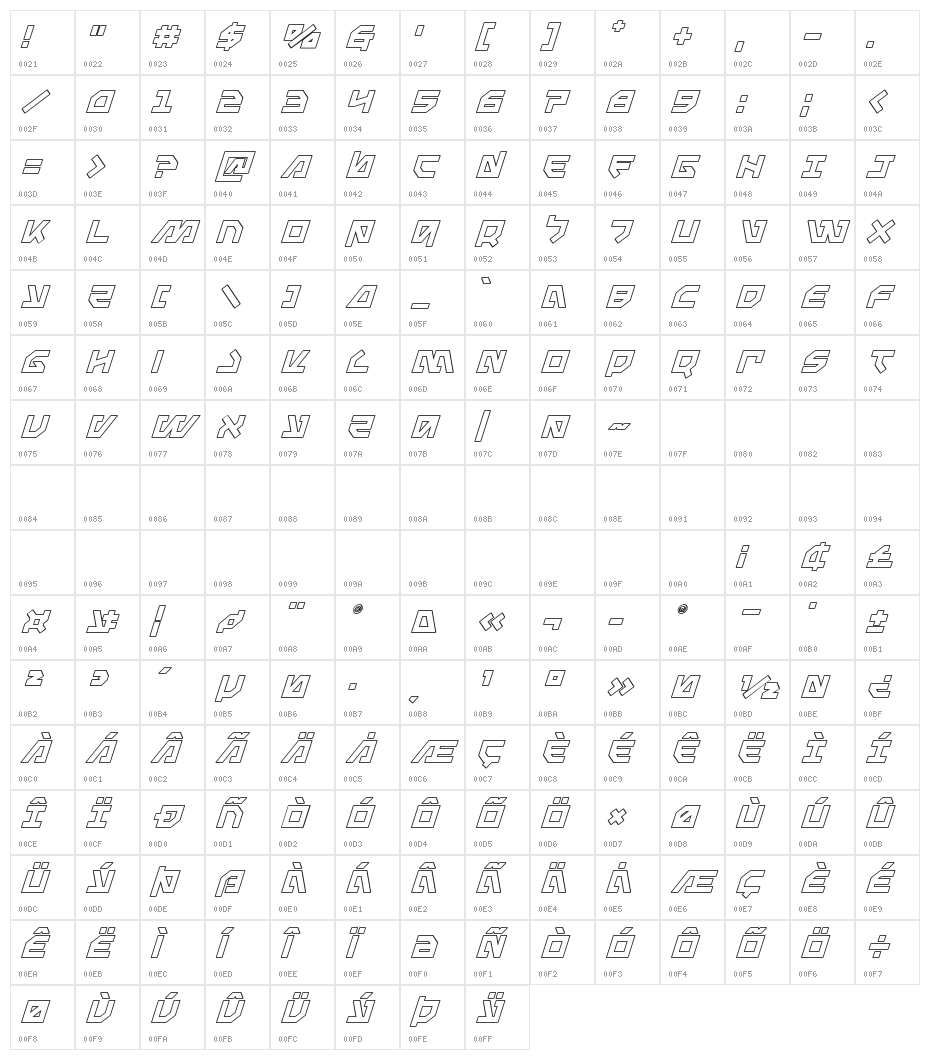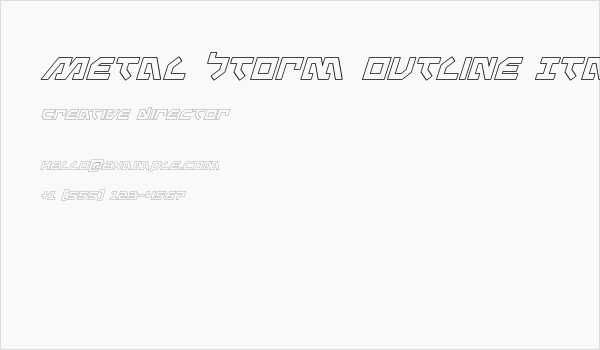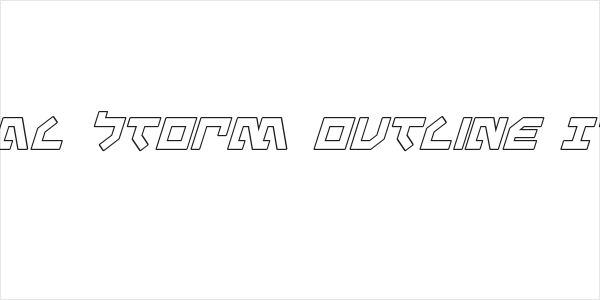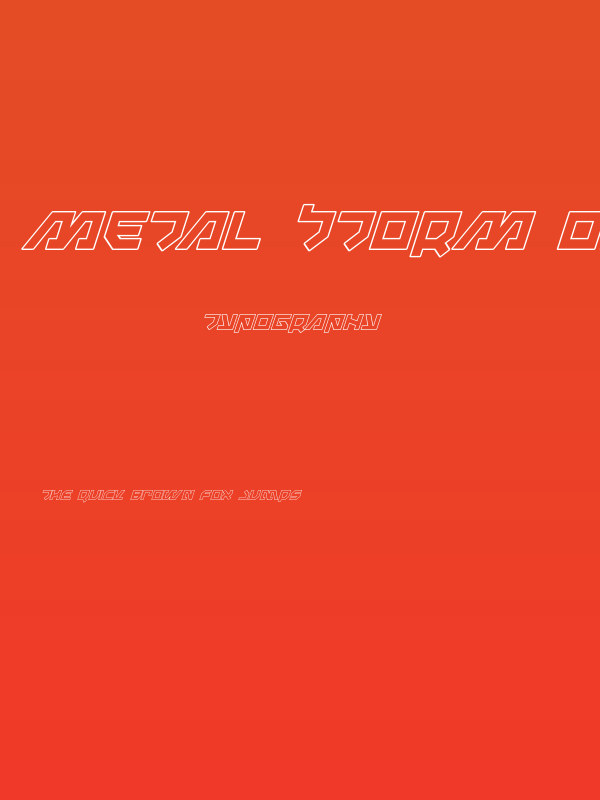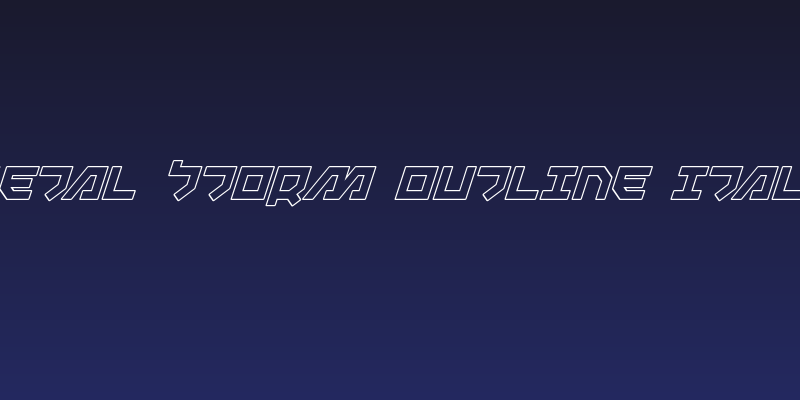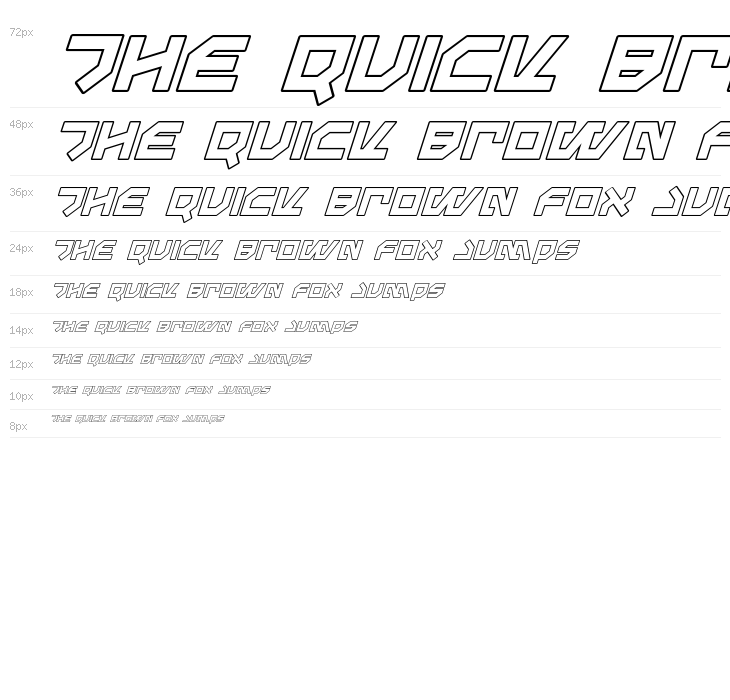
Metal Storm Outline Italic Font
Metal Storm Outline Italic Description
This font features a bold, angular design with a distinct outline style, giving it a futuristic and edgy appearance. The italicized slant adds a dynamic and forward-moving feel, making it ideal for projects that require a sense of motion or modernity. Each character is crafted with sharp edges and geometric precision, creating a cohesive and striking visual impact. The uppercase and lowercase letters maintain a consistent style, while the numbers and special characters complement the overall design. This font is perfect for creating eye-catching headlines, logos, or any design that aims to stand out with a bold statement.